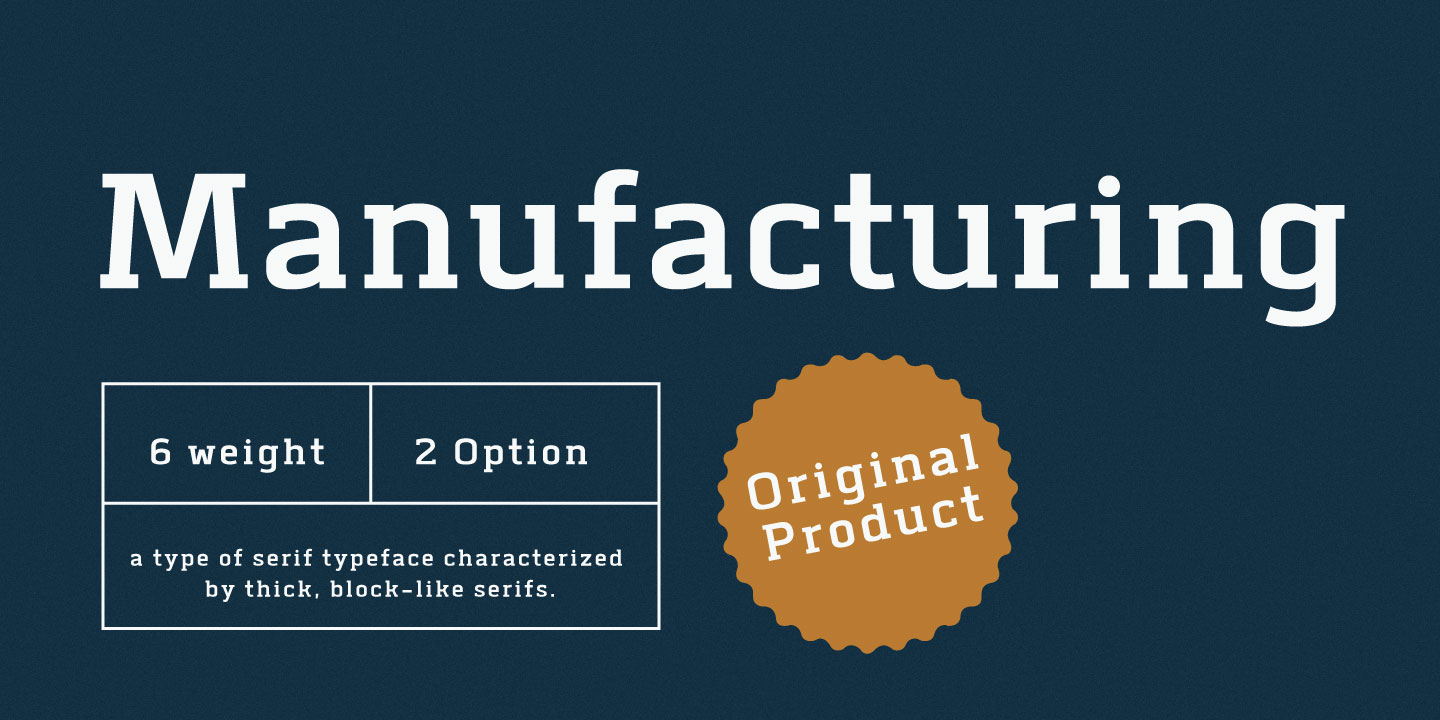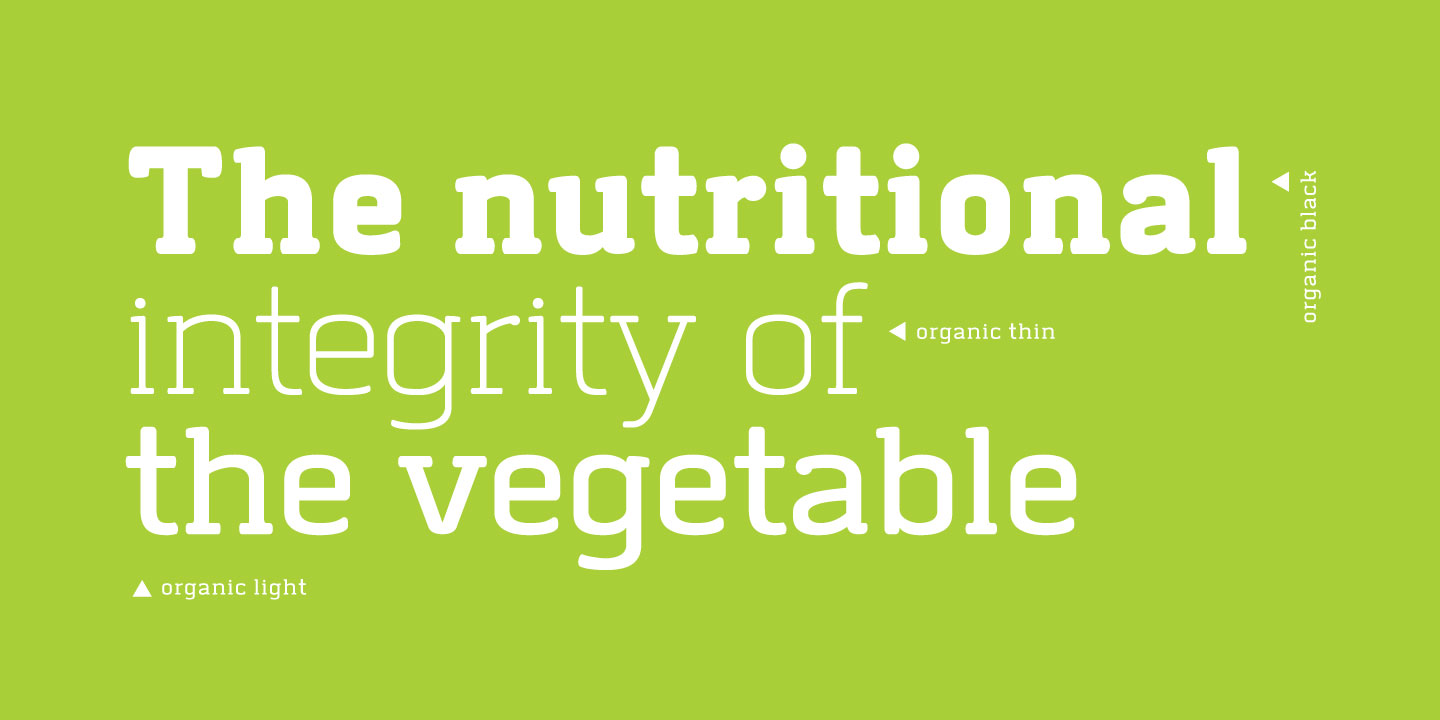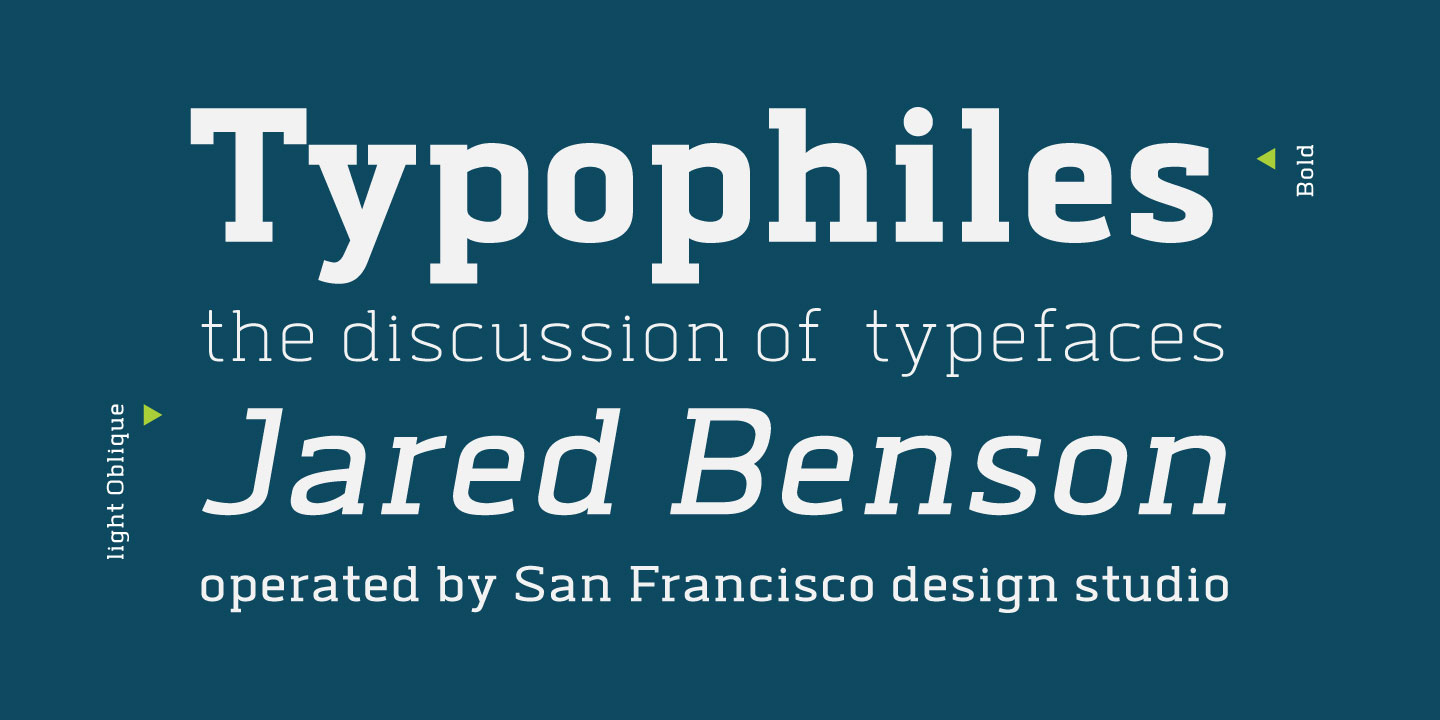
Structurally inspired by Modern font, Abula is distinctive for its two options: Original Slab Serif and Organic Slab Serif. The Latter is special for it illustrates the designer’s attempt to genetically modify the font. Beginning with the original structure, a humanist twist is incorporated into the serif adding the presence of curvy lines that shatter the solidity of the geometric form of the font. Another distinctive feature of Abula is the Ball Terminal at the upper curve of the letters such as ‘a, c, r and s.’ The results of Typesketchbook’s investigation give birth to a unique pair of the fonts, Original Slab Serif and Organic Slab Serif, that while stemming from the same structure, offer a different visual vibe and feel. Articles : Art4d Magazine(Thailand) Issue 207